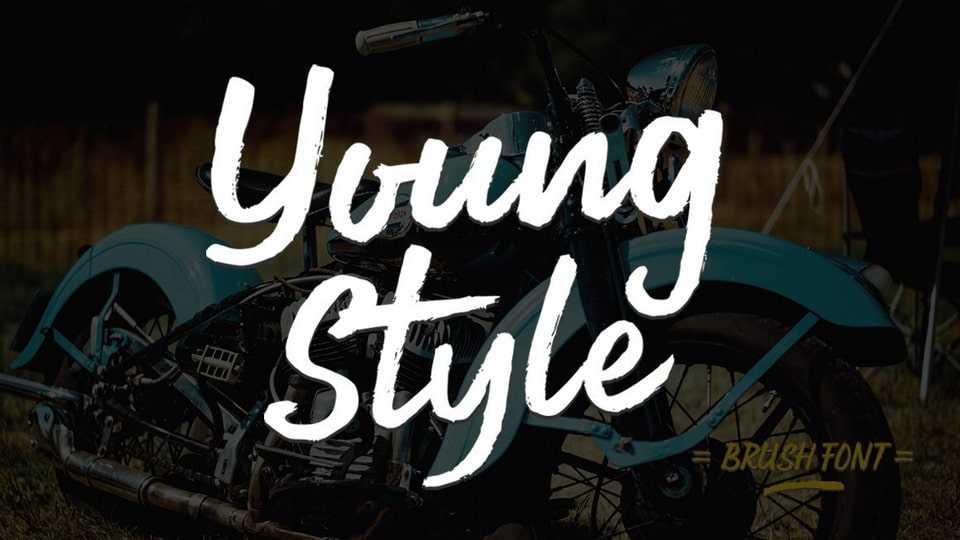
Download Young Style font, a casual handwritten typeface with an incredibly friendly feel. Whether you’re looking for fonts for Instagram or calligraphy scripts for DIY projects.